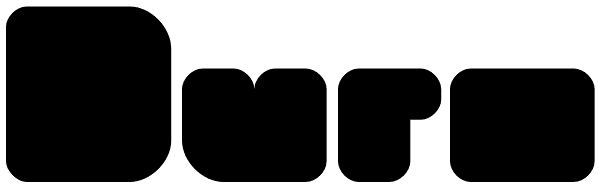
Duro
Duro was inspired by the shape of today's common electronic devices such as mp3 players and cell phones. The smooth shapes work nicely with branding. Duro features bold rounded-corner rectangular shapes. The Outline version aligns perfectly with the...